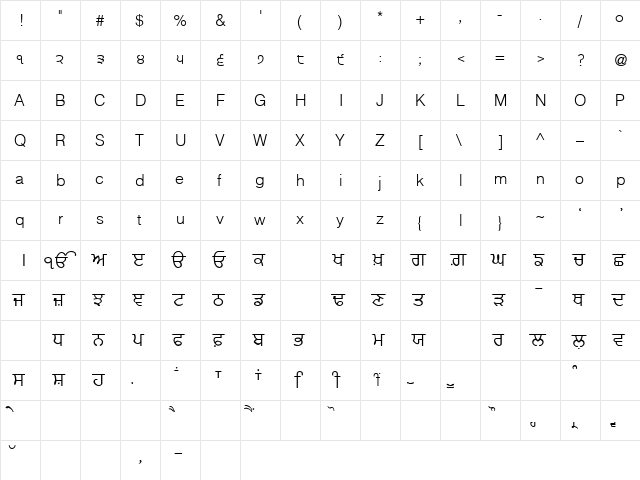
Likhari_B Normal
Design Context for Likhari_B Typeface
Likhari_B offers clean, dependable letterforms without strong stylistic allegiance, making it a practical choice for designers who need flexibility.